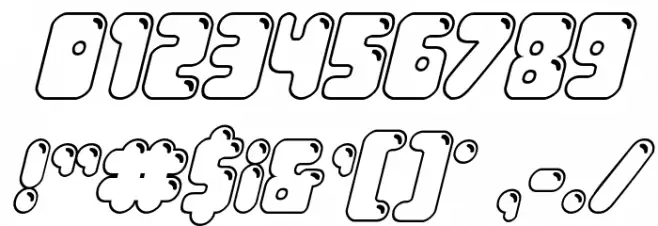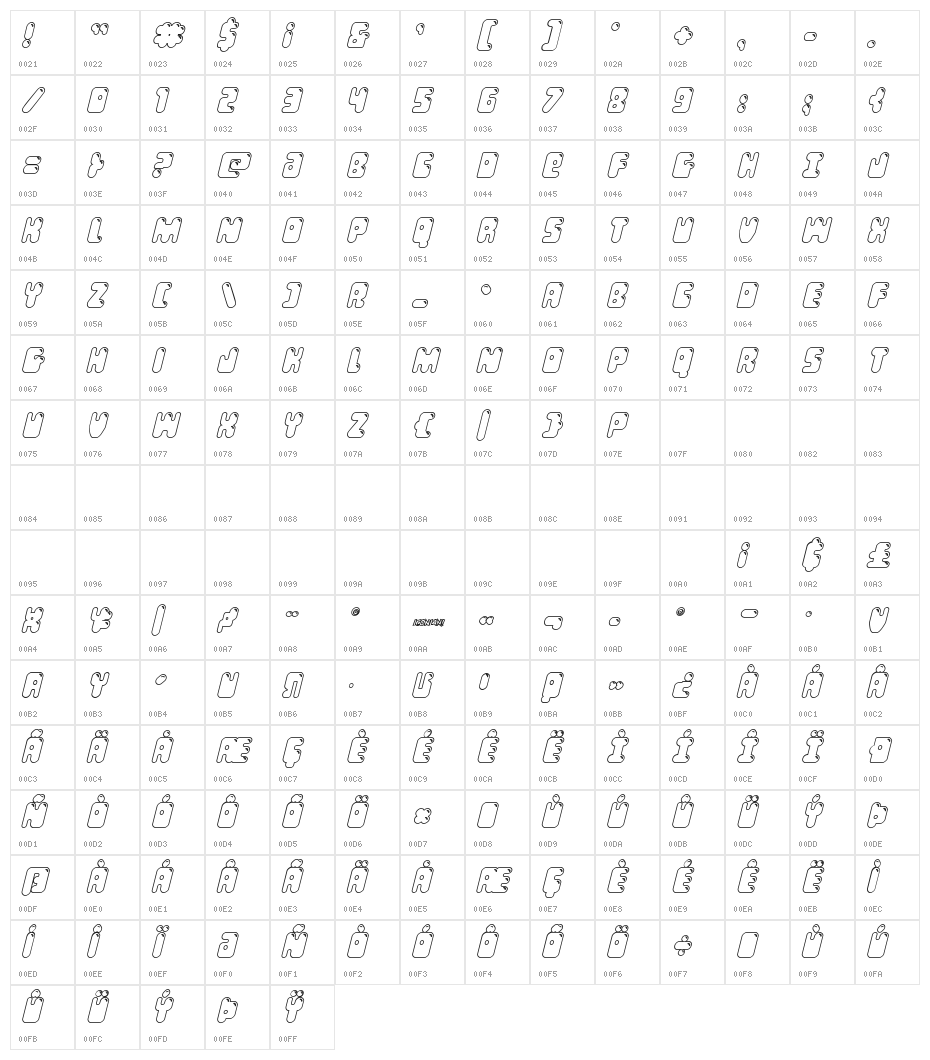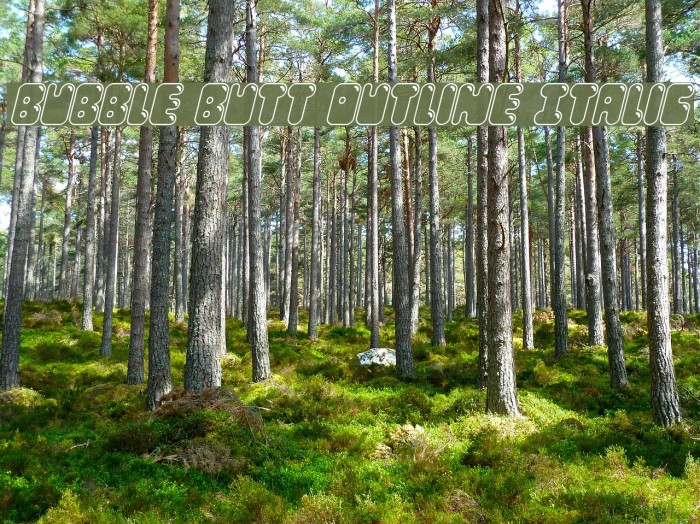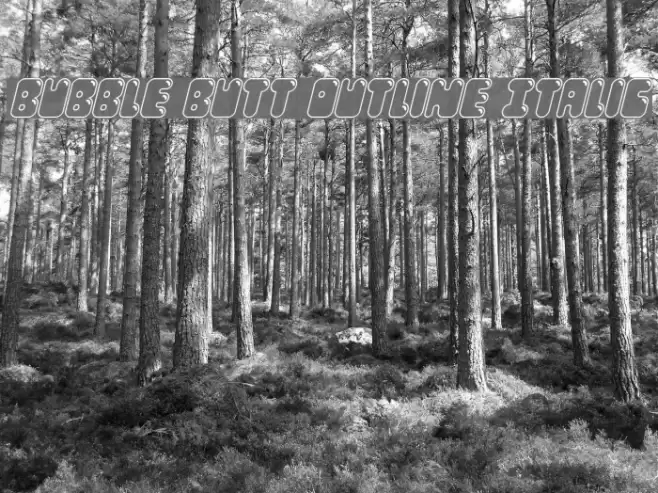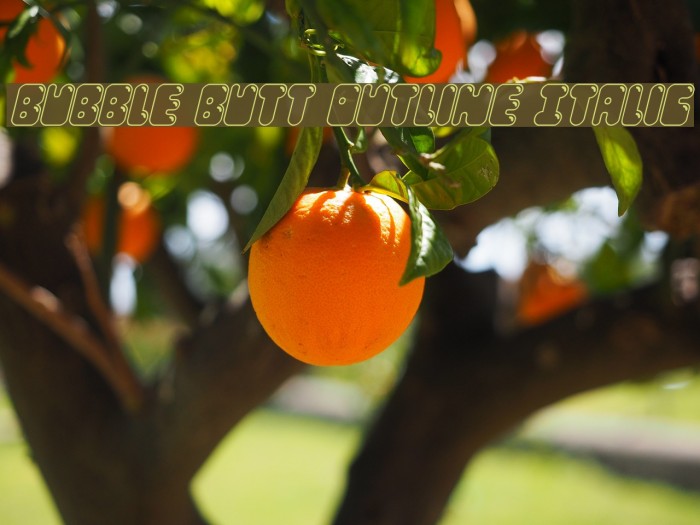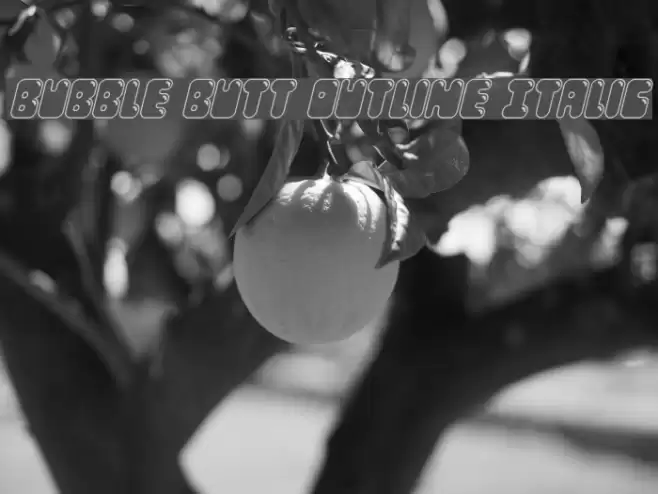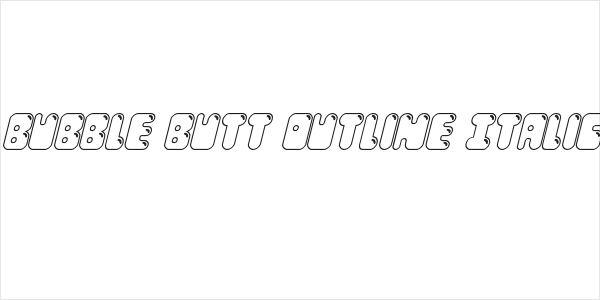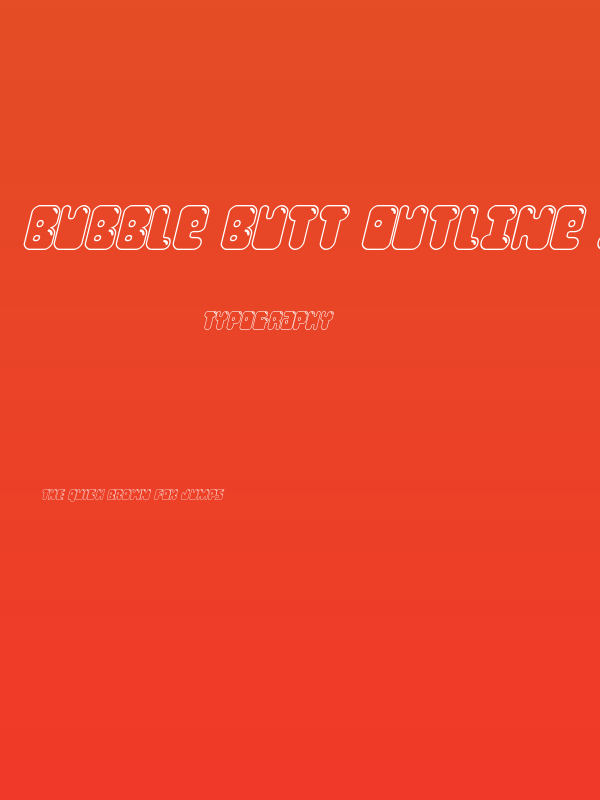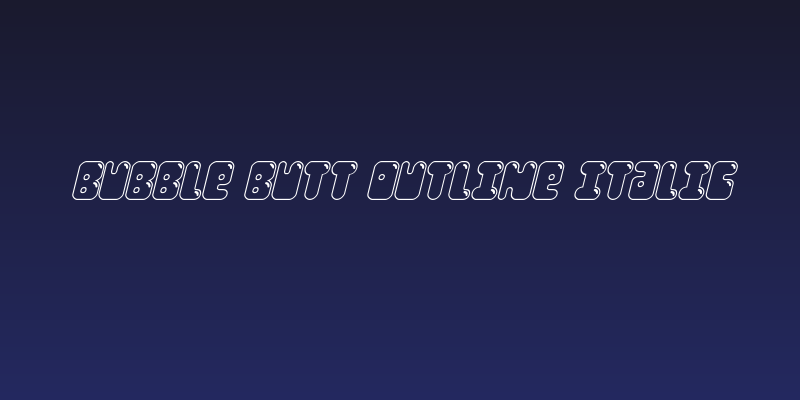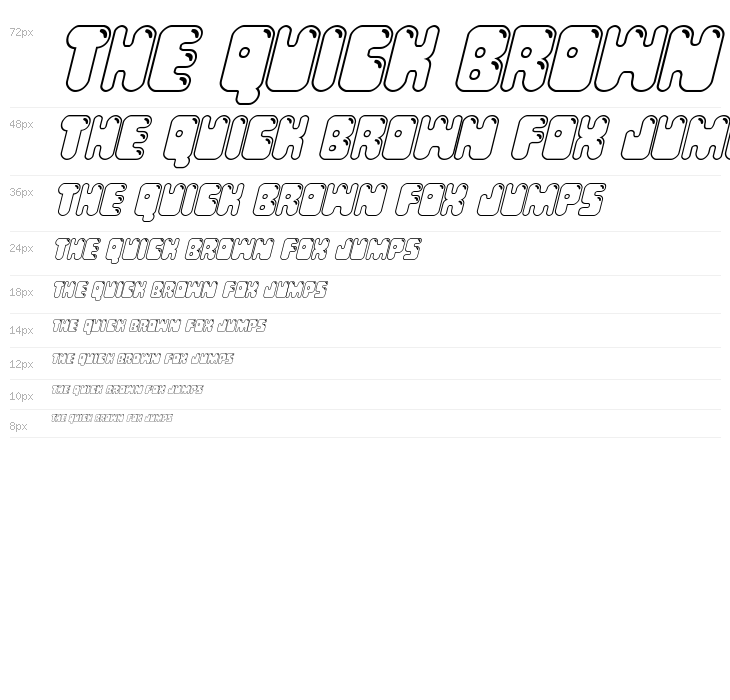
Bubble Butt Outline Italic Font
Bubble Butt Outline Italic Description
This playful and bold font features a unique bubble-like outline that gives it a fun and whimsical appearance. The characters are rounded and thick, with a consistent stroke width that maintains a uniform look across all letters and numbers. The italic slant adds a dynamic feel, making it appear as if the letters are in motion. The font's outline style creates a hollow effect, which can be creatively filled with colors or patterns for added visual interest. It includes a full set of uppercase and lowercase letters, numbers, and a variety of special characters, ensuring versatility for different design needs.